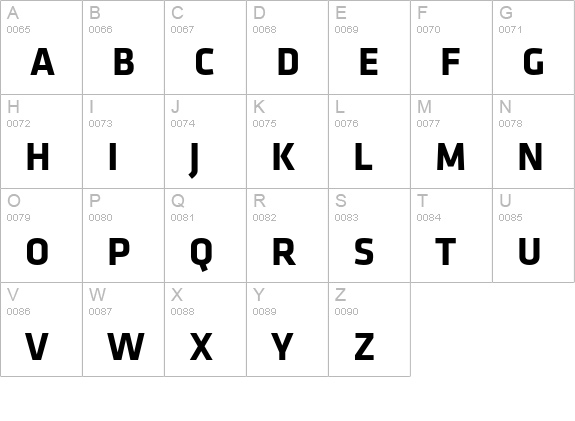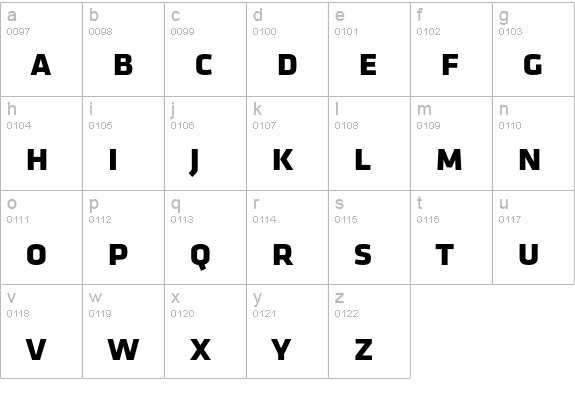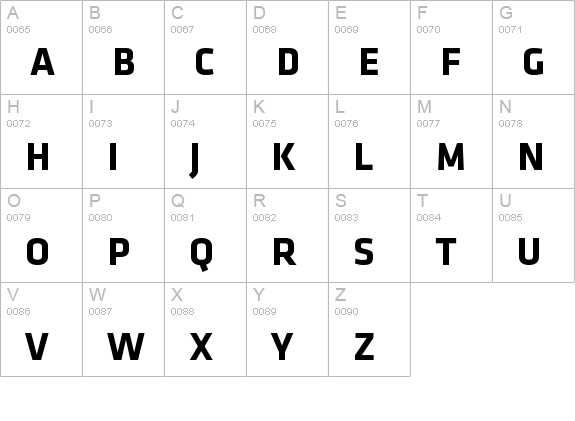
KlavikaBoldCaps-SC Font Details
KlavikaBoldCaps-SC font is a stunning and versatile typeface that exudes a sense of boldness and sophistication. Its captivating design features stylish capital letters with a strikingly modern twist. This font is ideal for creating eye-catching headlines, logos, posters, and other design projects that demand attention. With its strong and distinctive letterforms, KlavikaBoldCaps-SC font effortlessly stands out from the crowd. Its clean lines and geometric shapes give it a contemporary feel, making it perfect for both digital and print media. Whether you're designing for a corporate brand, a fashion magazine, or a tech startup, this font will make your work shine. What makes KlavikaBoldCaps-SC font even more appealing is that it is freely available to download at FontsMarket.com. This means that you can easily access and use this font in your projects without any hassle or cost. This font offers you the freedom to explore your creativity and bring your design ideas to life without breaking the bank. So, if you're looking for a font that combines elegance, modernity, and the added bonus of being free, look no further than KlavikaBoldCaps-SC. Download it today from FontsMarket.com and elevate your designs to new heights.